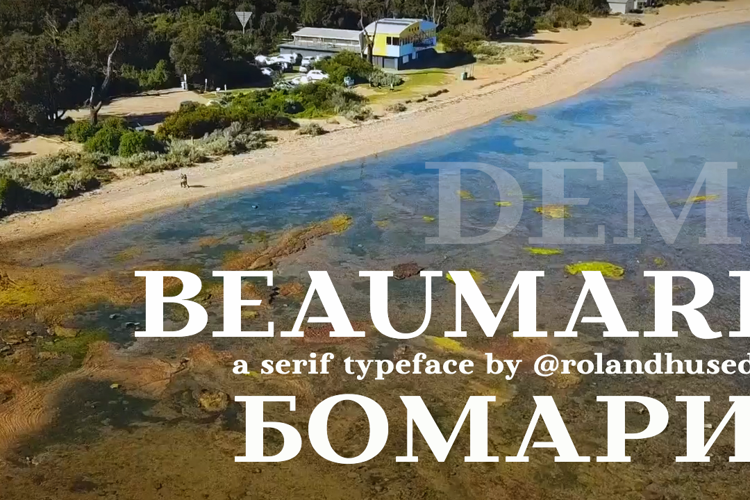
Beaumaris Demo Font
This is the demo version of the font called “BEAUMARIS” serif typeface. It's a modern, bold serif with a touch of Art Deco. Perfect for branding projects for fashion and jewellery, headlines and magazines.
This demo version contains Characters a-z A-Z numbers 1-9 and Russian alphabet lowercase and uppercase letters.